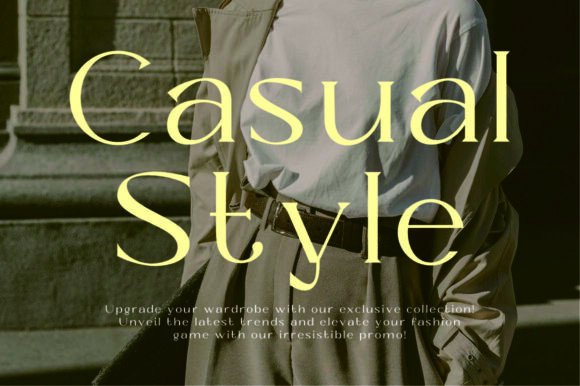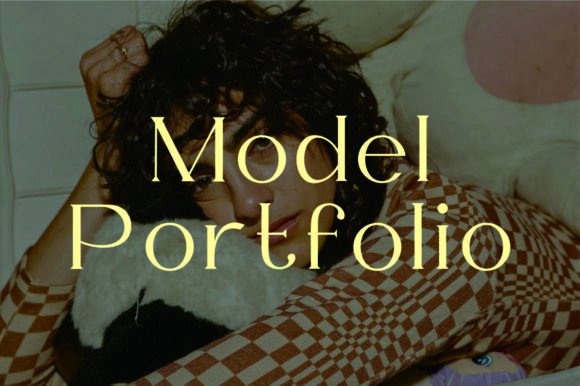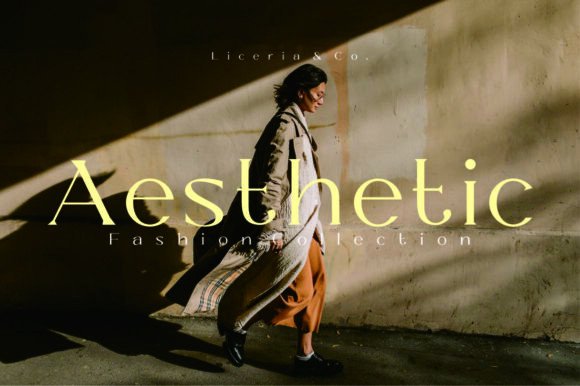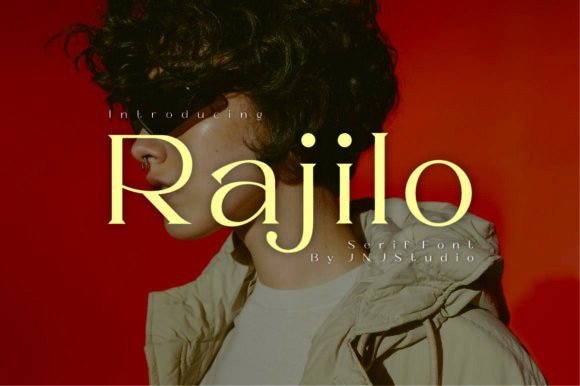
Introduction to Rajilo Font
Rajilo is a refined modern serif typeface that blends timeless elegance with contemporary design.
Characterized by its clean lines, high contrast strokes, and subtle curves, Rajilo offers a sophisticated appearance that is perfect for branding, editorial design, and luxury packaging Each letterform is crafted with attention to detail, balancing classic serif traditions with a fresh, modern twist.
Rajilo Font offers exceptional quality and versatility, making it a valuable addition to your design toolkit. Whether you’re creating for personal projects or commercial use, Rajilo Font delivers professional results.